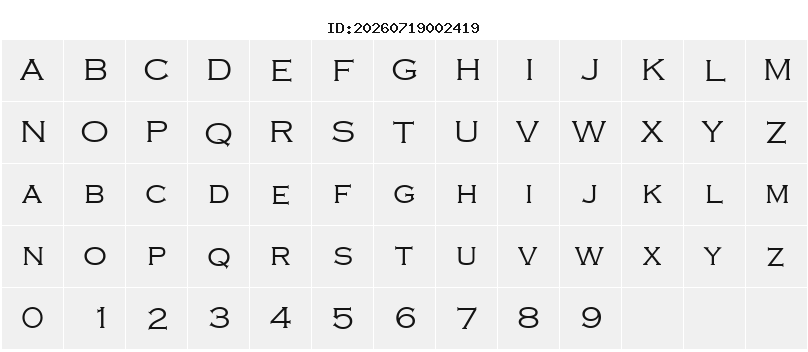
• Font Name: Copperplate Gothic Light
• Font ID: Copperplate Gothic Light
• Full Font Name: Copperplate Gothic Light
• Version: Version 1.51
• PostScript Name: CopperplateGothic-Light
• Character Count: 241
About Copperplate Gothic Light.ttf
Copperplate Gothic Light.ttf is a modern, elegant sans-serif font designed for ultimate readability and visual harmony. Perfect for branding, headlines, web design, and print materials.